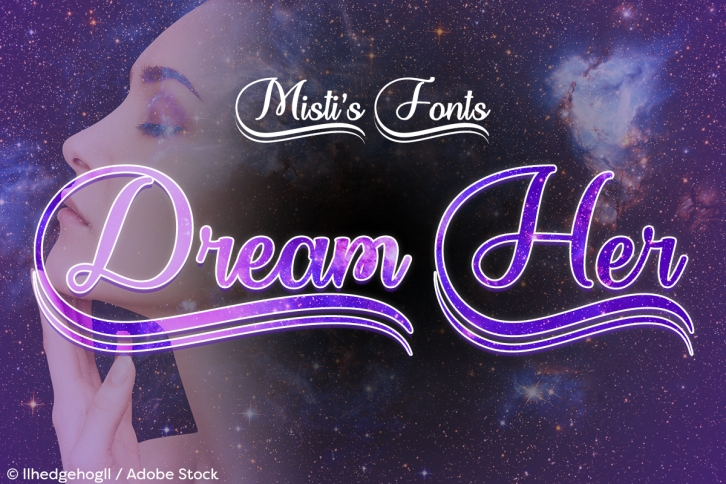
To create a swash: type an uppercase letter, then type asterisks until you have achieved the desired length - there are 21 lengths in total for each capital letter!
For example, for Dream Her, type: D**********ream H***er